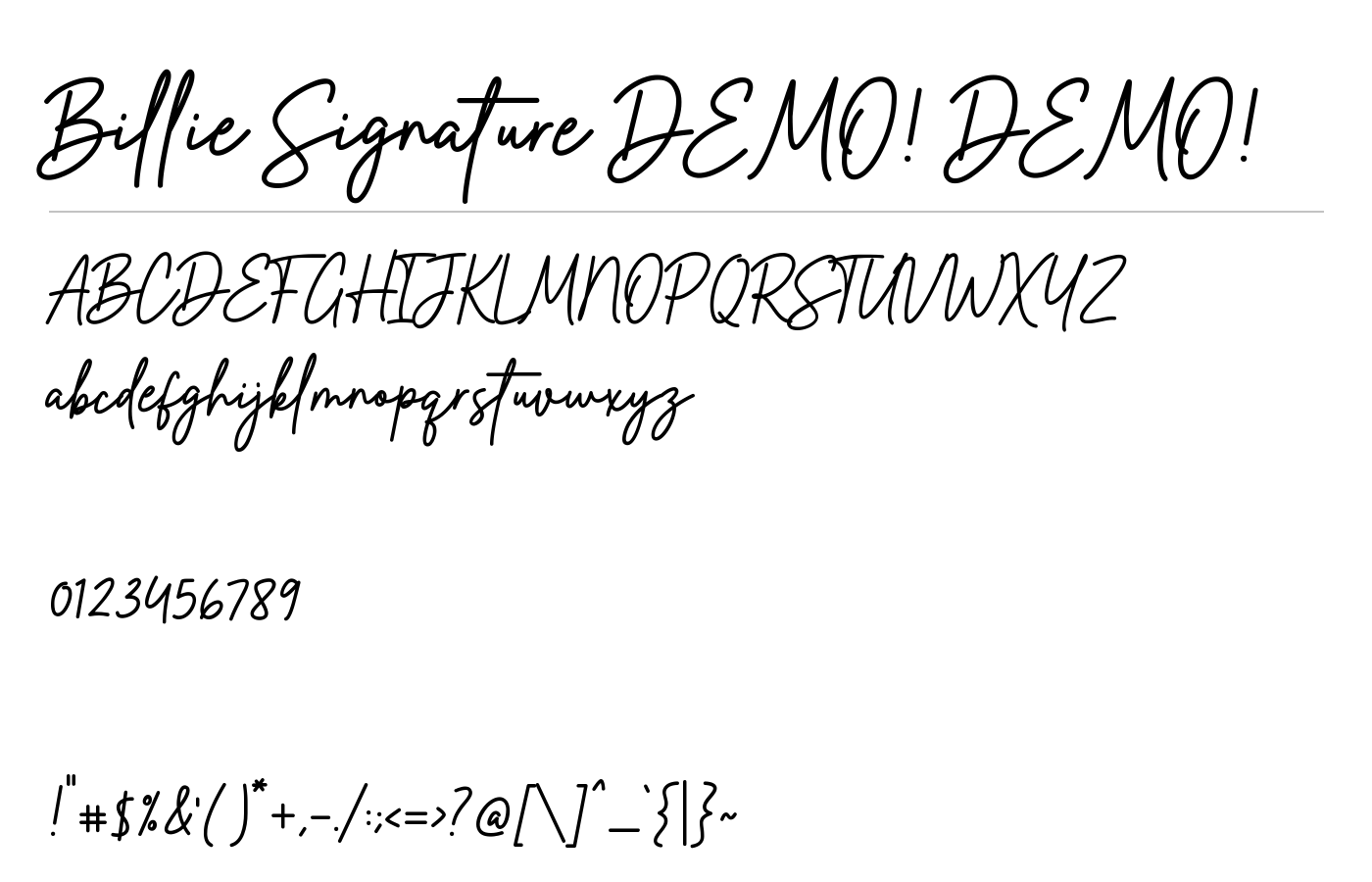
Billie Signature DEMO is a stylish handwritten script font that features smooth, flowing strokes with a casual yet elegant flair. Its slender, slightly condensed letterforms and consistent weight give it a modern and personal touch, making it ideal for branding, invitations, and creative projects that seek a natural, signature-like appearance. This font works beautifully in logos, social media graphics, and headlines where an authentic, approachable vibe is desired.
Billie Signature DEMO! Font
About Billie Signature DEMO! Font
| Font family | Billie Signature DEMO! Font |
| Designer | Jimtype Studio |